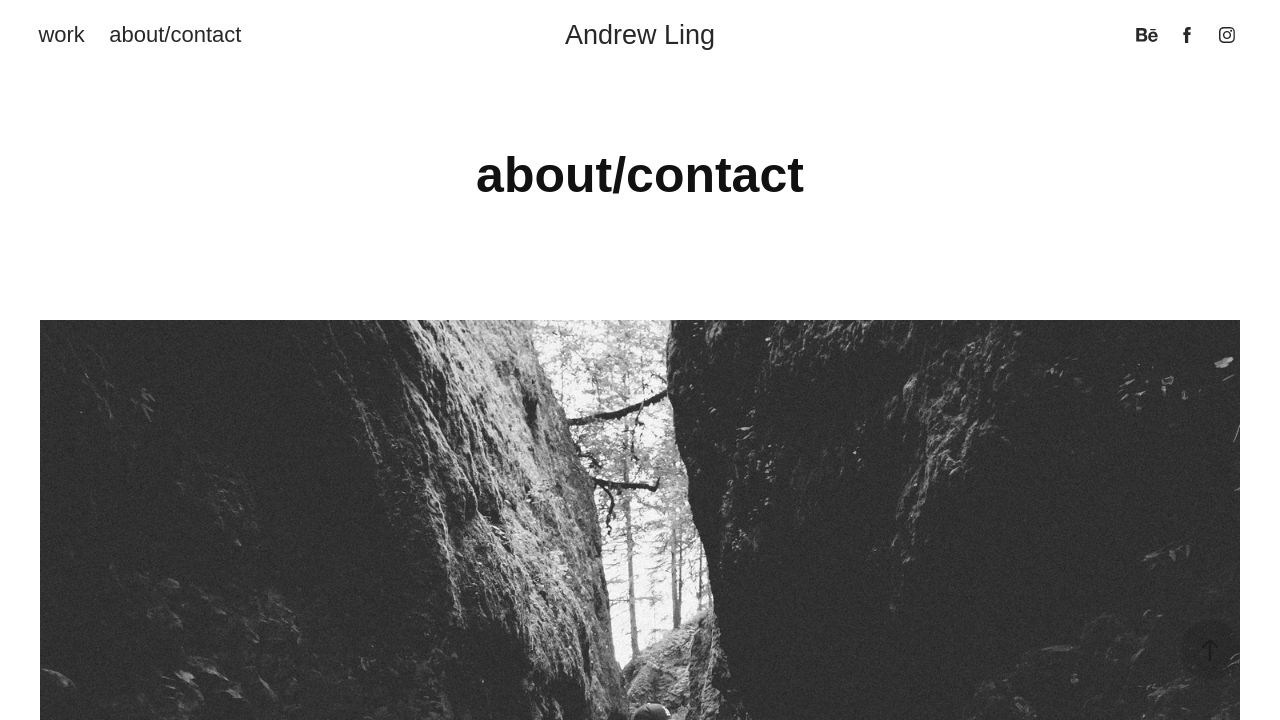
Andrewling.myportfolio.com uses fbft and ftnk as its main typefaces. Helvetica and helvetica-neue are declared as fallbacks. 4 fonts detected, last checked Sep 24, 2026.
At andrewling.myportfolio.com, the typography plays a crucial role in creating an engaging user experience. The site prominently features Helvetica and helvetica-neue in weight 400, which provide a clean and recognizable aesthetic. Additionally, fonts like fbft and ftnk from Adobe in weights 400 and 300 respectively, enhance the overall visual identity. These choices reflect a commitment to clarity and consistency, appealing to an audience seeking reliable and professional design.
Andrewling.myportfolio.com uses fbft and ftnk as its main typefaces. Helvetica and helvetica-neue are declared as fallbacks. 4 fonts detected, last checked Sep 24, 2026.
The primary fonts used on andrewling.myportfolio.com include Helvetica and helvetica-neue in weight 400, along with fbft in weight 400 and ftnk in weight 300.
Helvetica is known for its versatility and legibility, making it a popular choice. Compared to other sans-serif options, it maintains a clean structure that stands out in both digital and print formats.
On andrewling.myportfolio.com, you'll find Helvetica and helvetica-neue available in weight 400, while Adobe's fbft is also at weight 400 and ftnk is available in weight 300, providing variety in typographic choices.